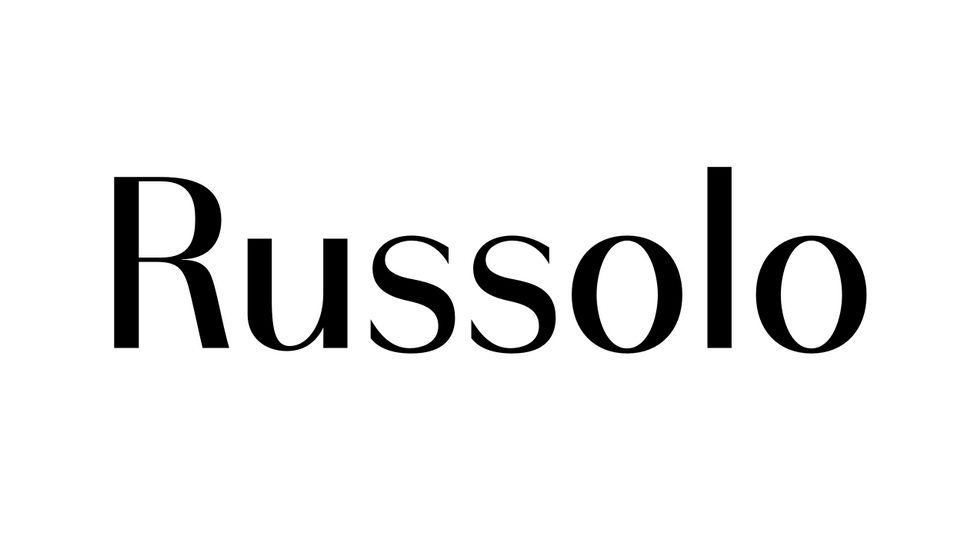
Download Russolo typeface, a font family combining Bodoni and Futura into a high-contrast geometric sans. Russolo is inspired by Giambattista Bodoni’s prints and a solid, powerful, and modern text style.
Designer: Micah Stupak